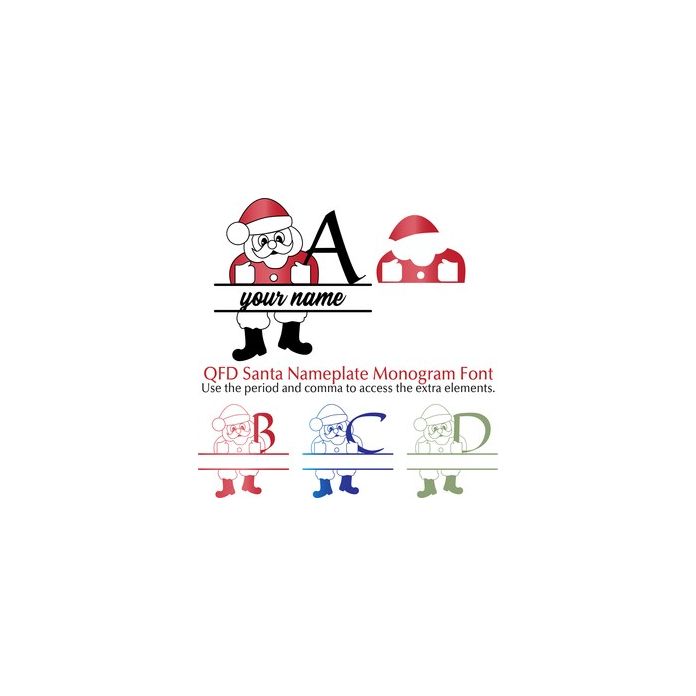
Use the period and comma to access the extra elements, size them with the letter and use them as underlays. Add in the name! Perfect for gift tags, cards, pillows, invitations, wall art, t-shirts, mugs and anything else you can think of. See our detailed monograms tutorial by clicking the Instructions button. If you have any questions, please feel free to contact me!